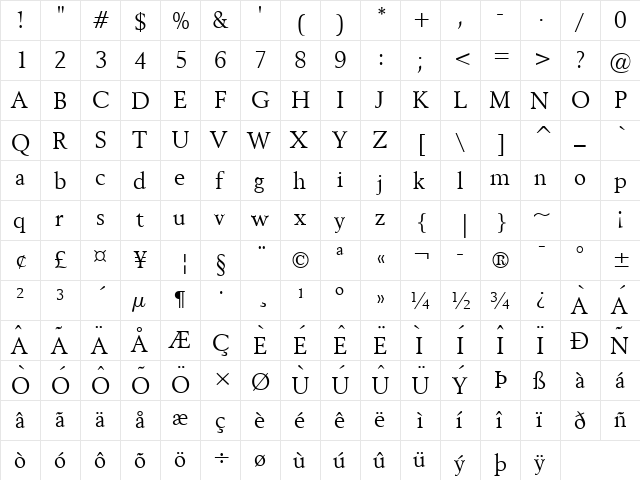
Revive 8 Normal
Design Context for Revive 8 Typeface
Revive 8 takes a measured approach to typography — its balanced proportions and neutral character make it a reliable workhorse for both digital and print work.